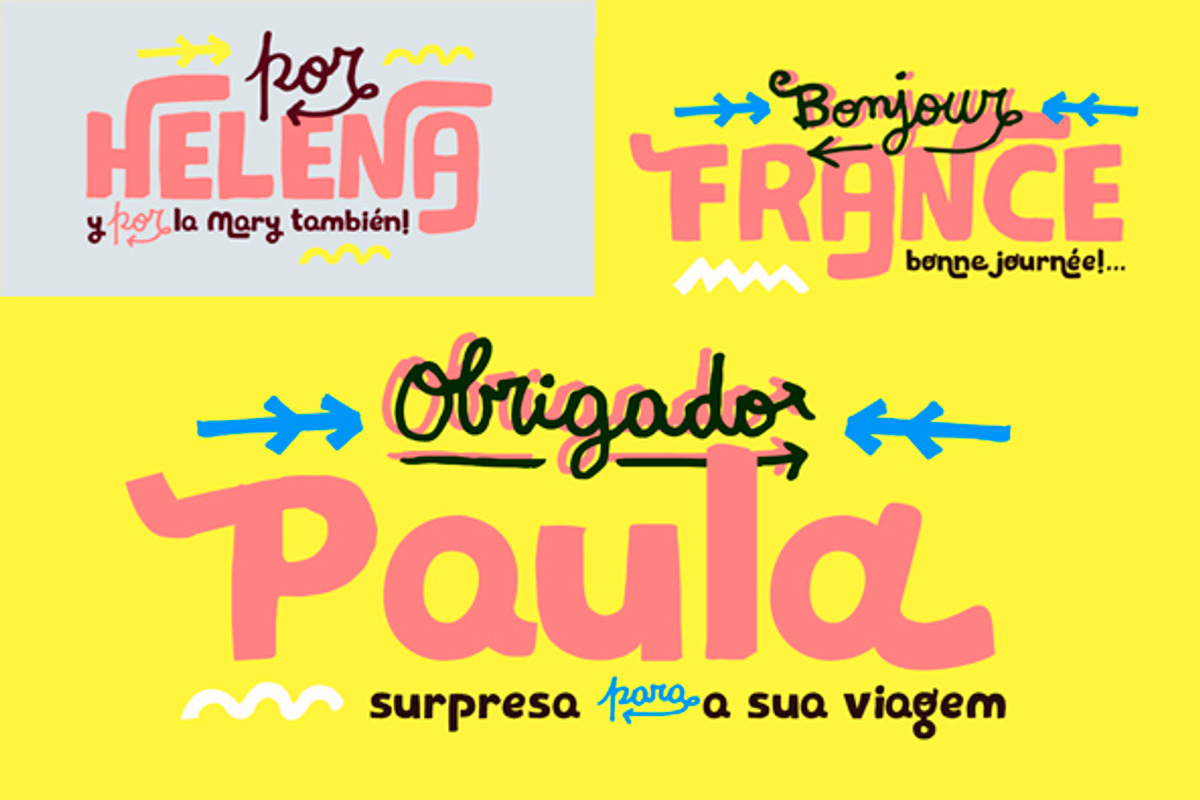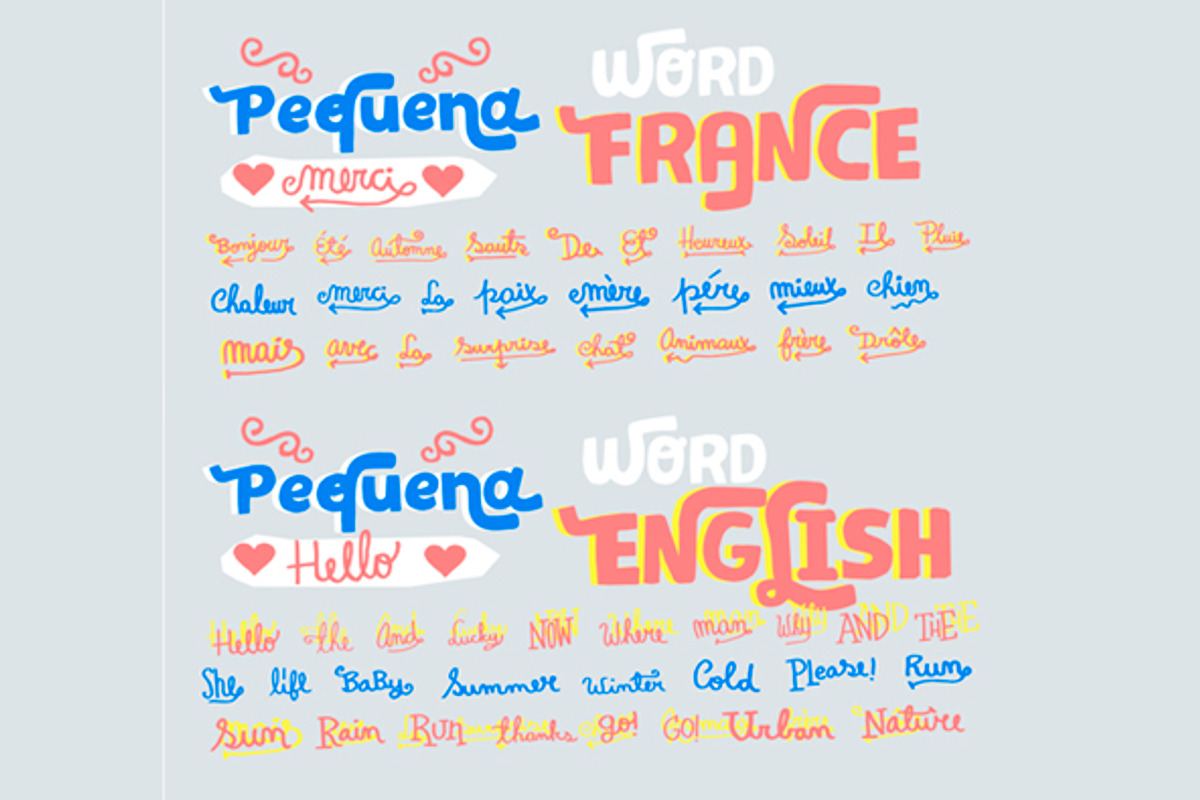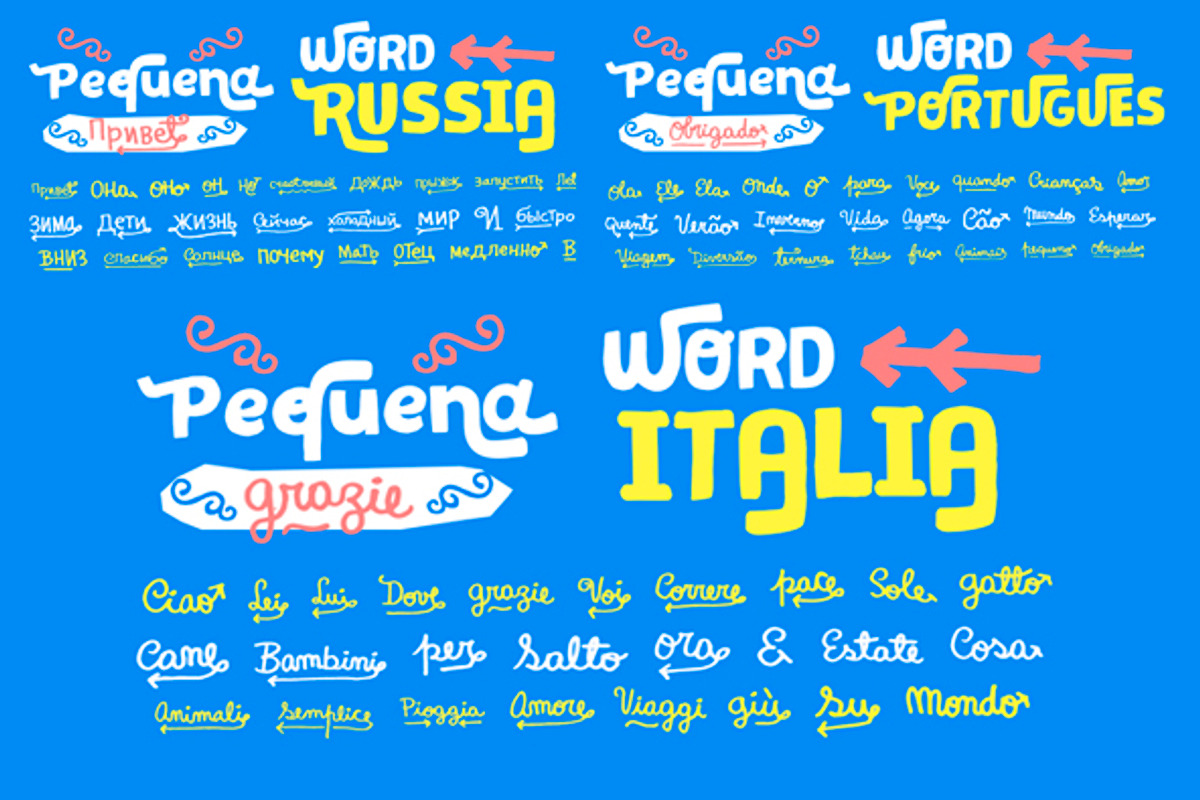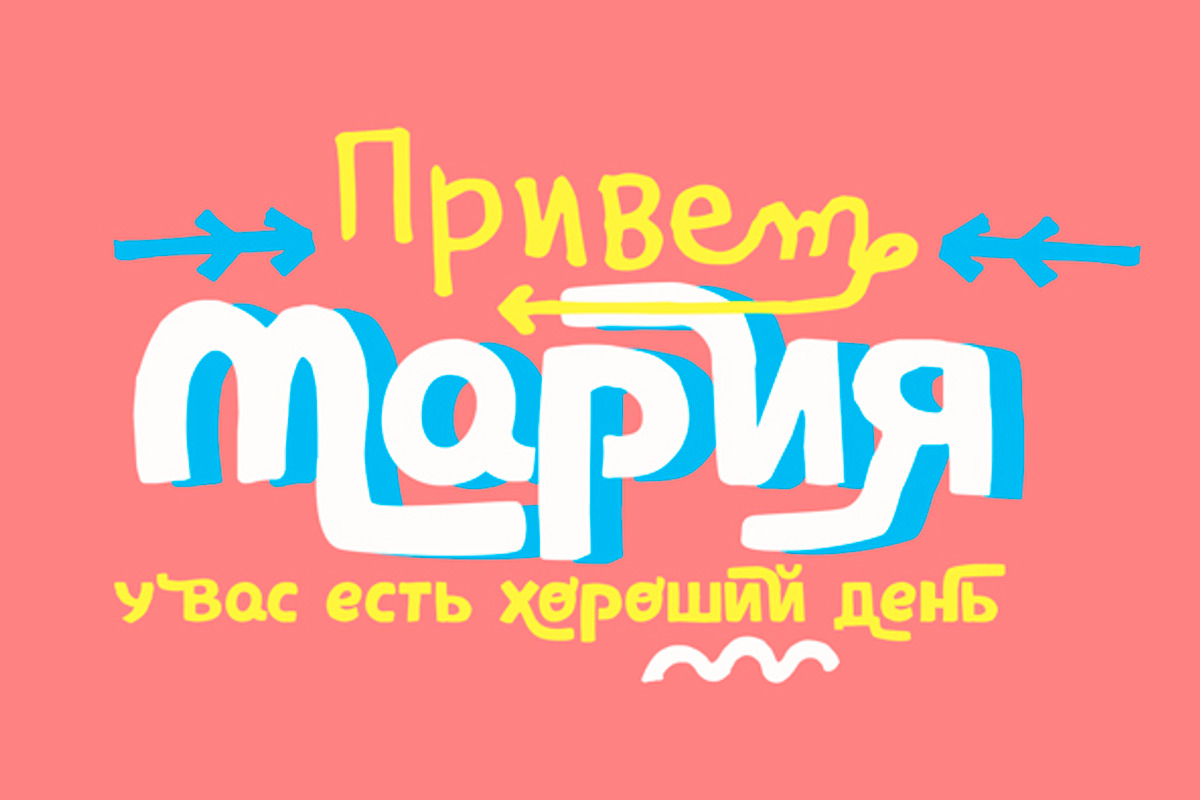
Pequena Family, Additional fonts
Pequena Family, Additional fonts by Rodrigo Typo is a font selected for branding, posters, packaging, typography.
Why Pequena Family, Additional fonts is worth a look
Pequena Family, Additional fonts by Rodrigo Typo fits naturally into Branding, posters, packaging, typography.